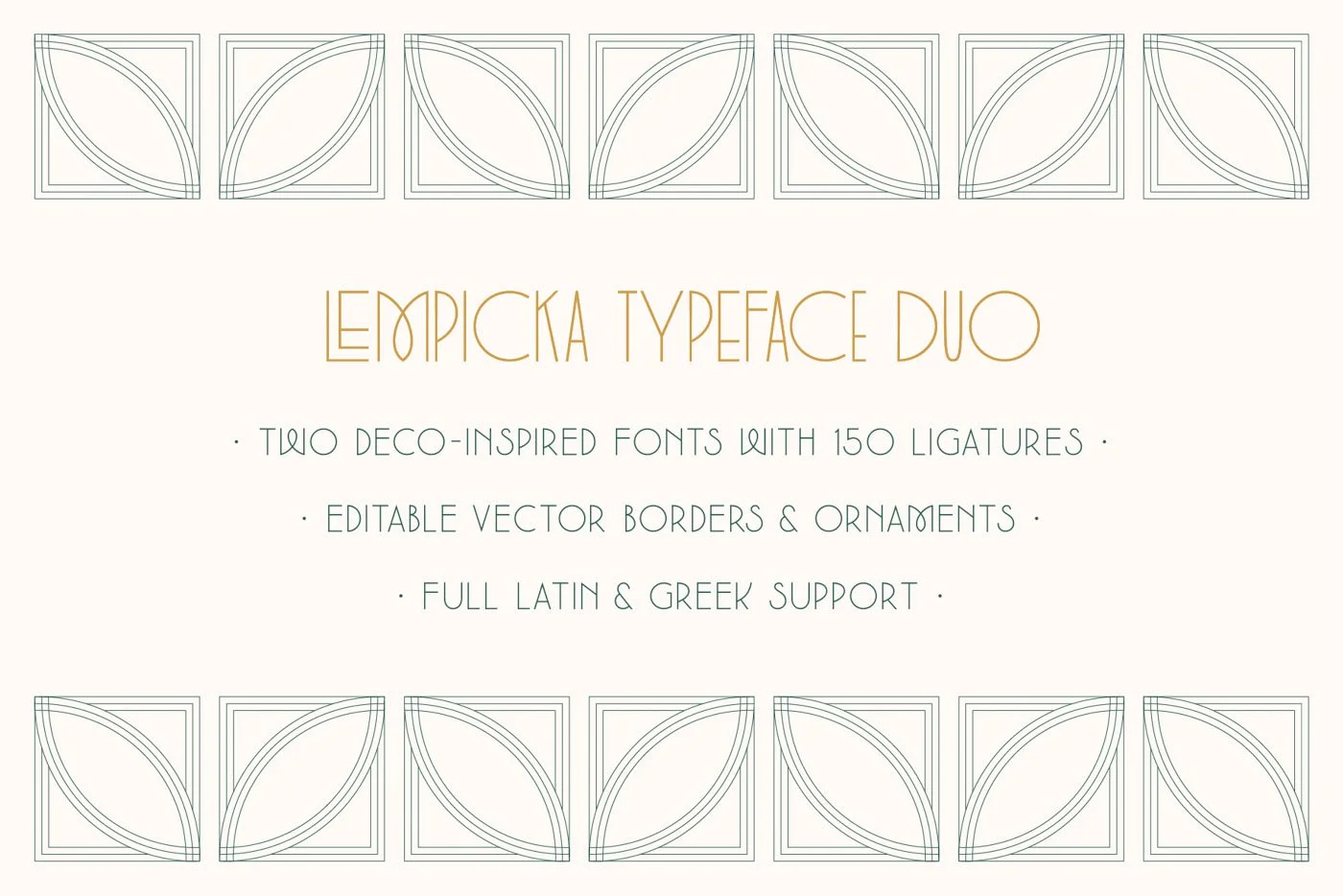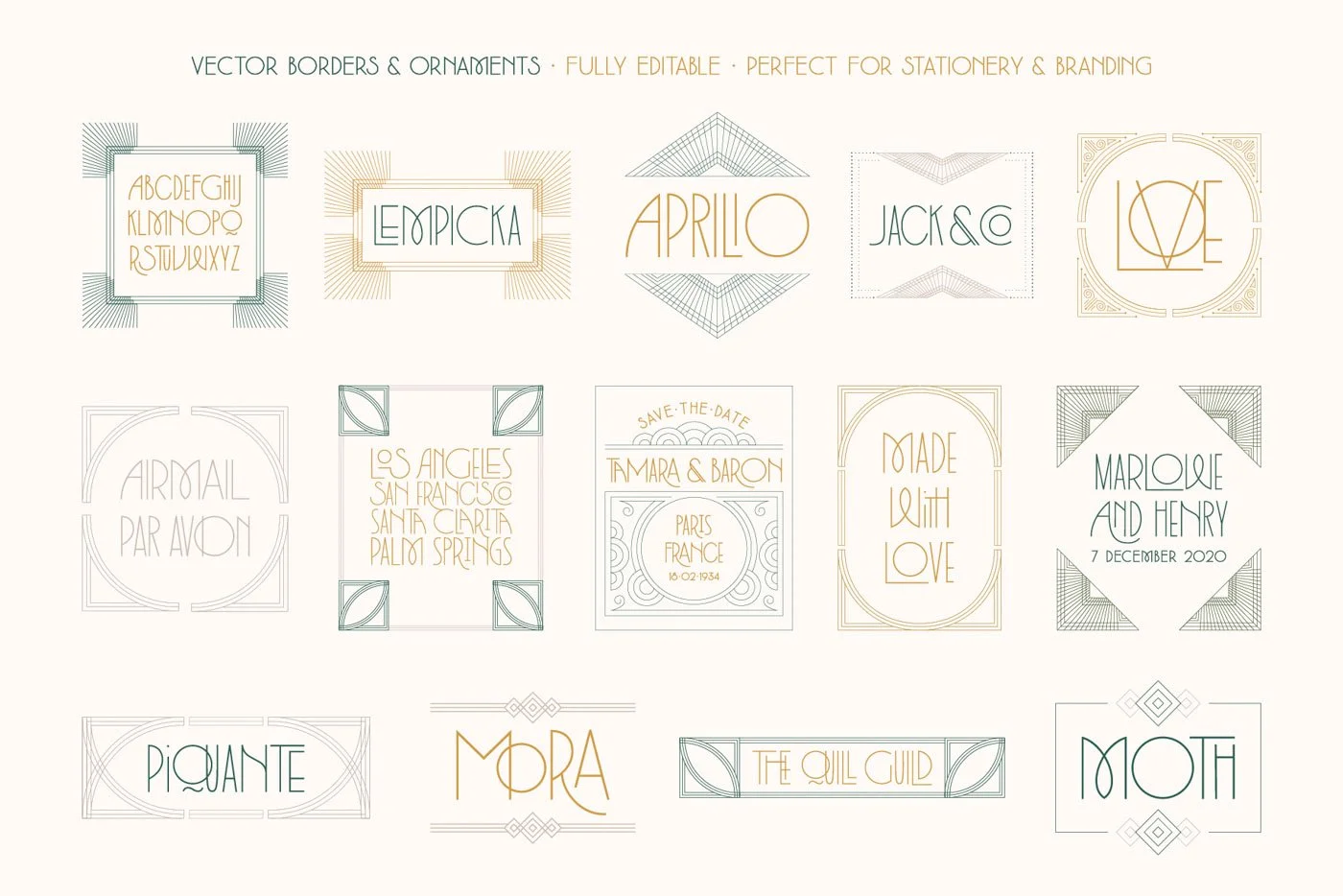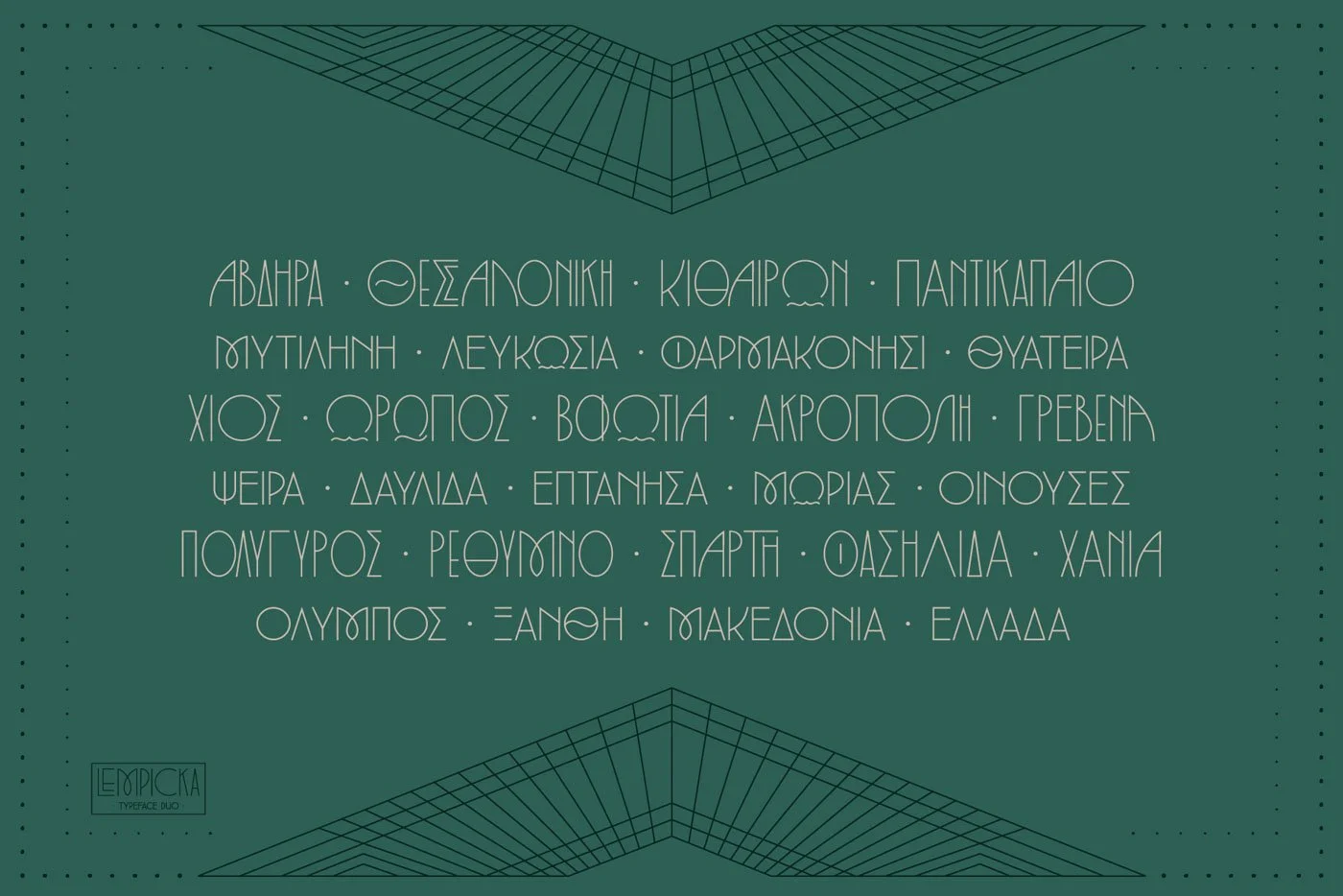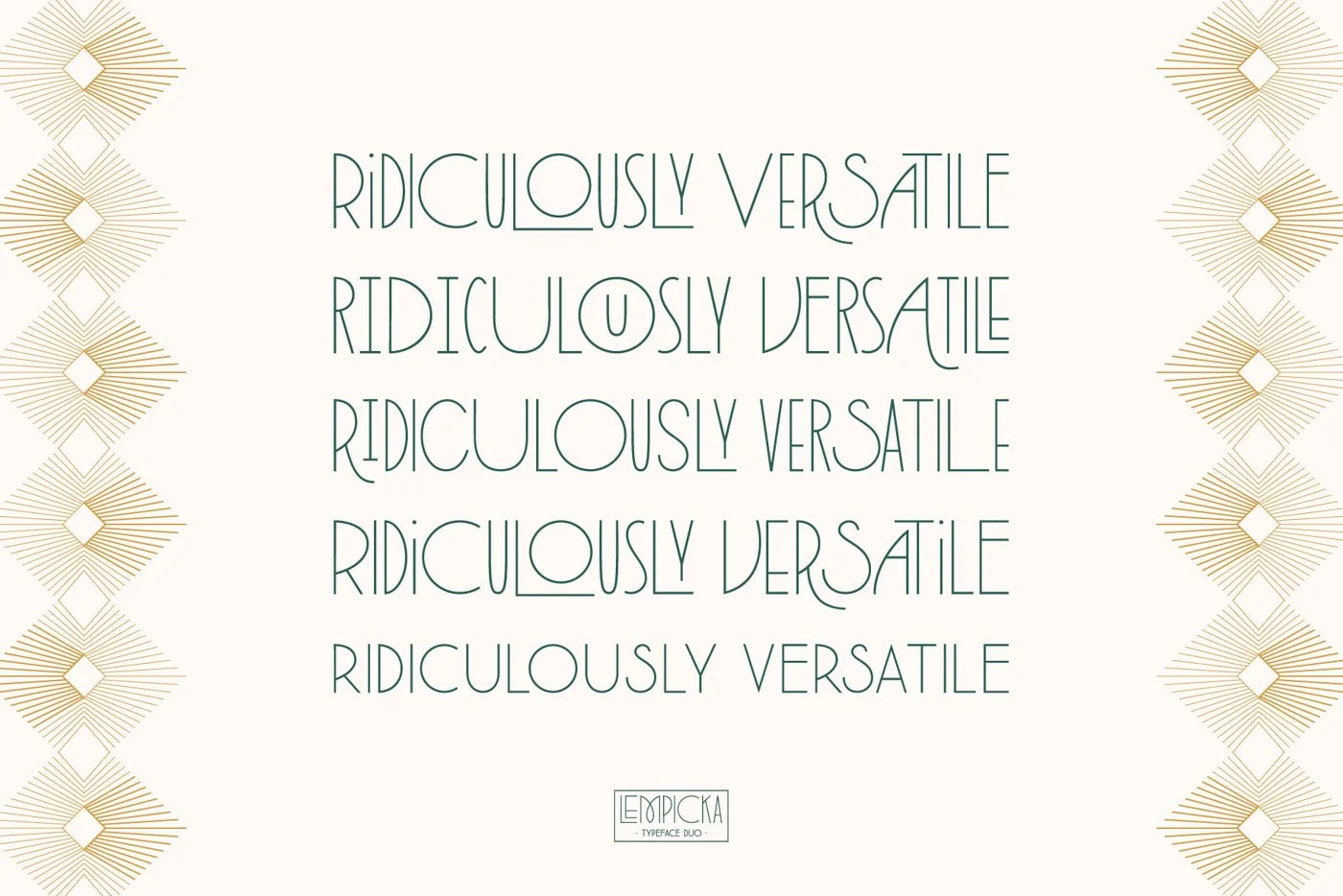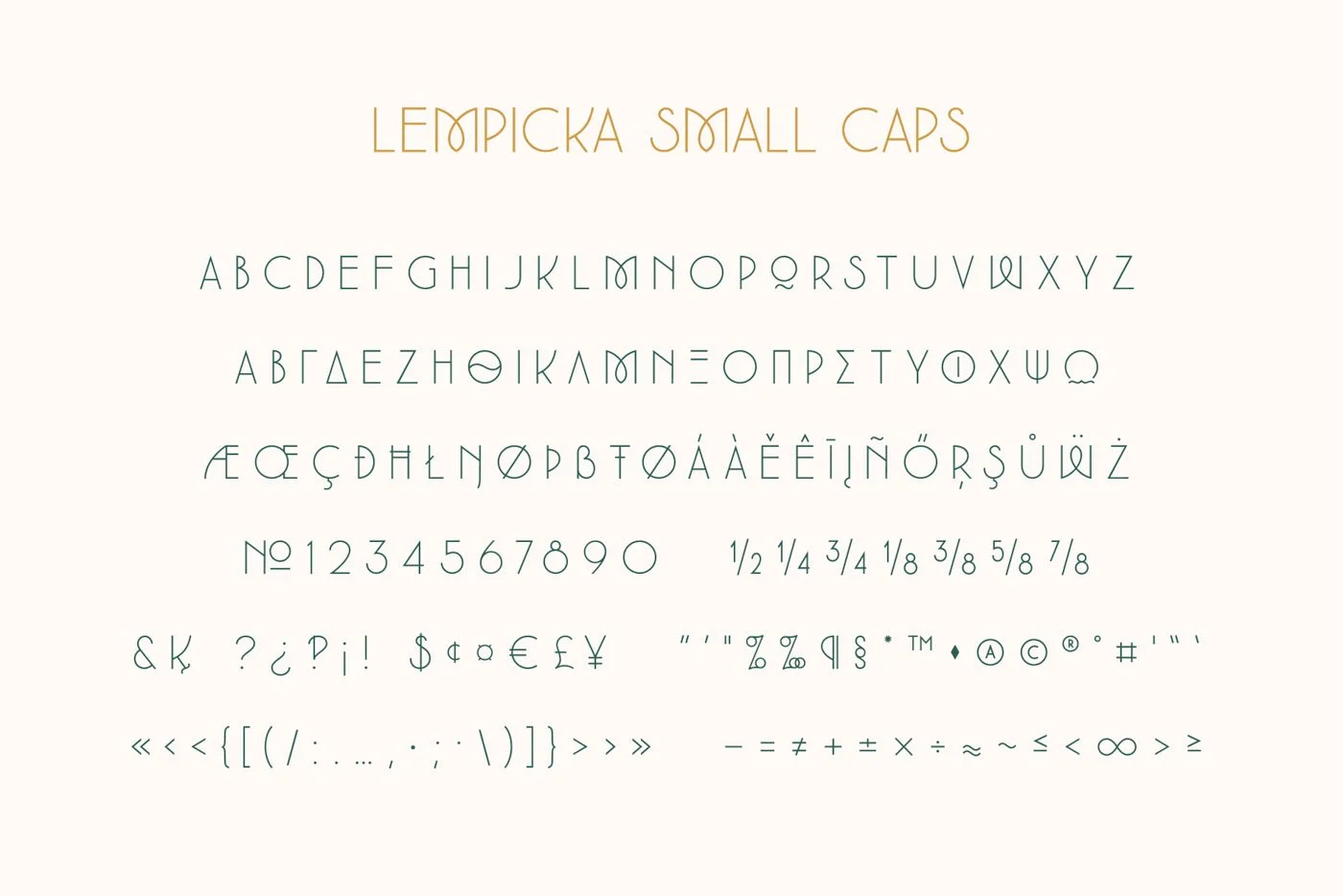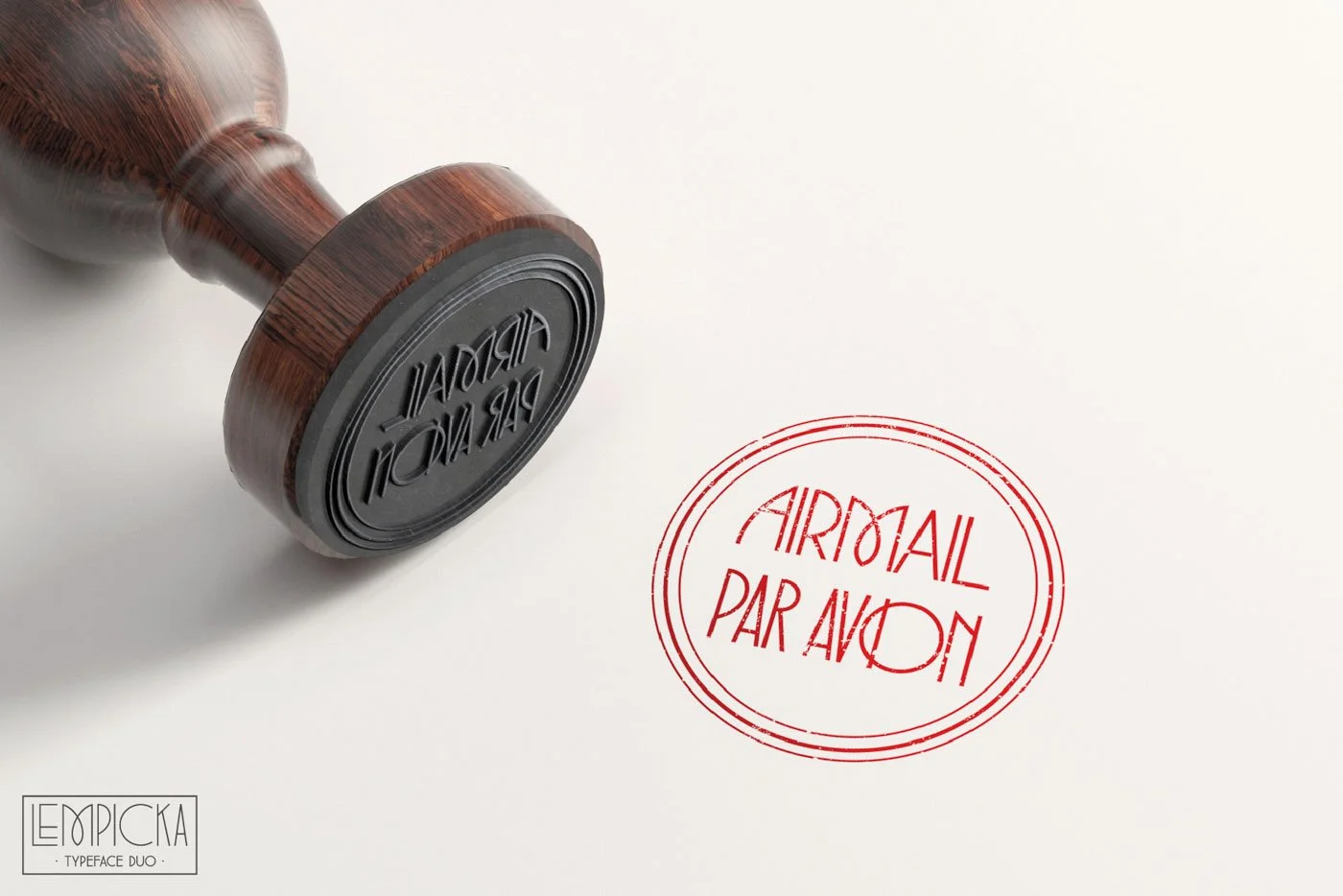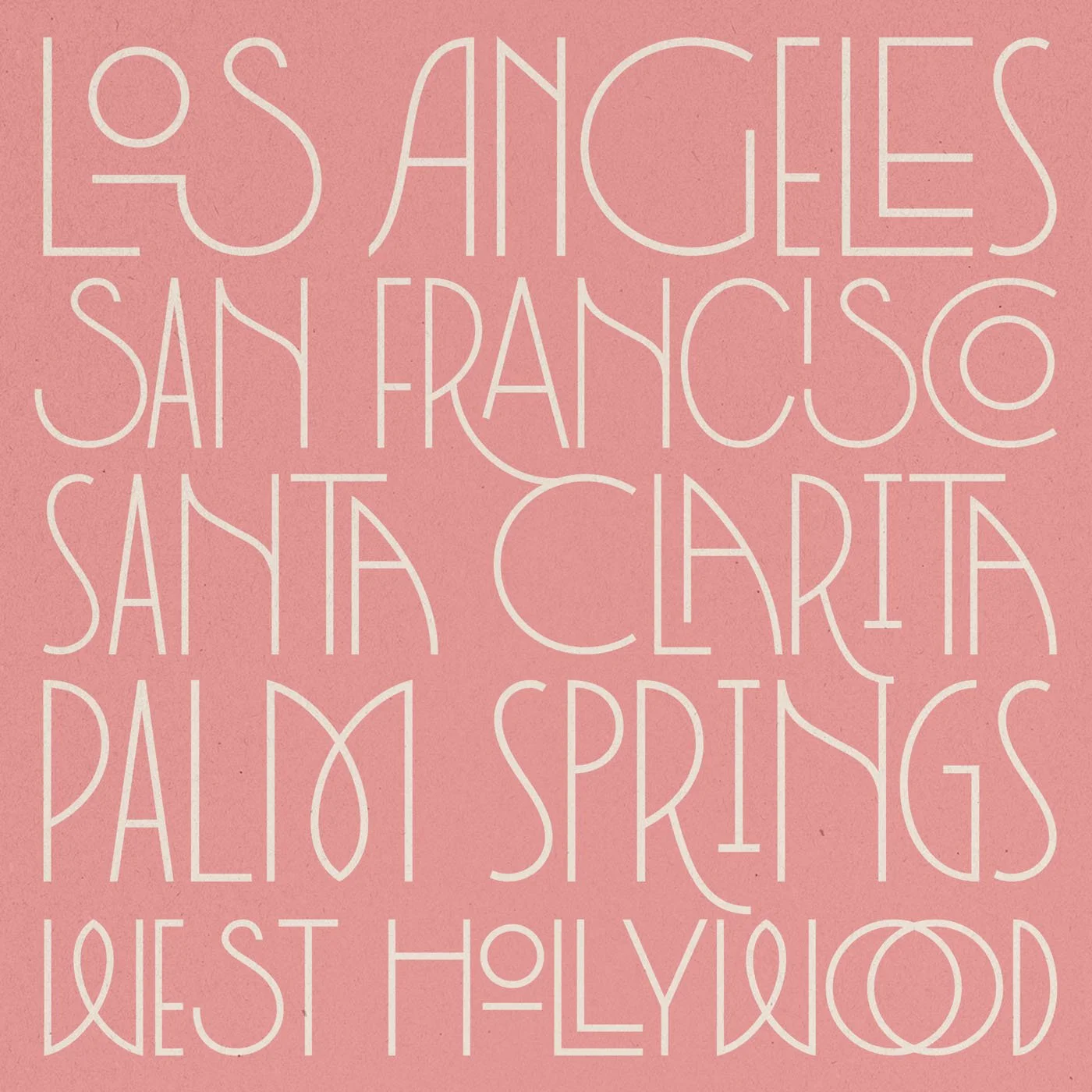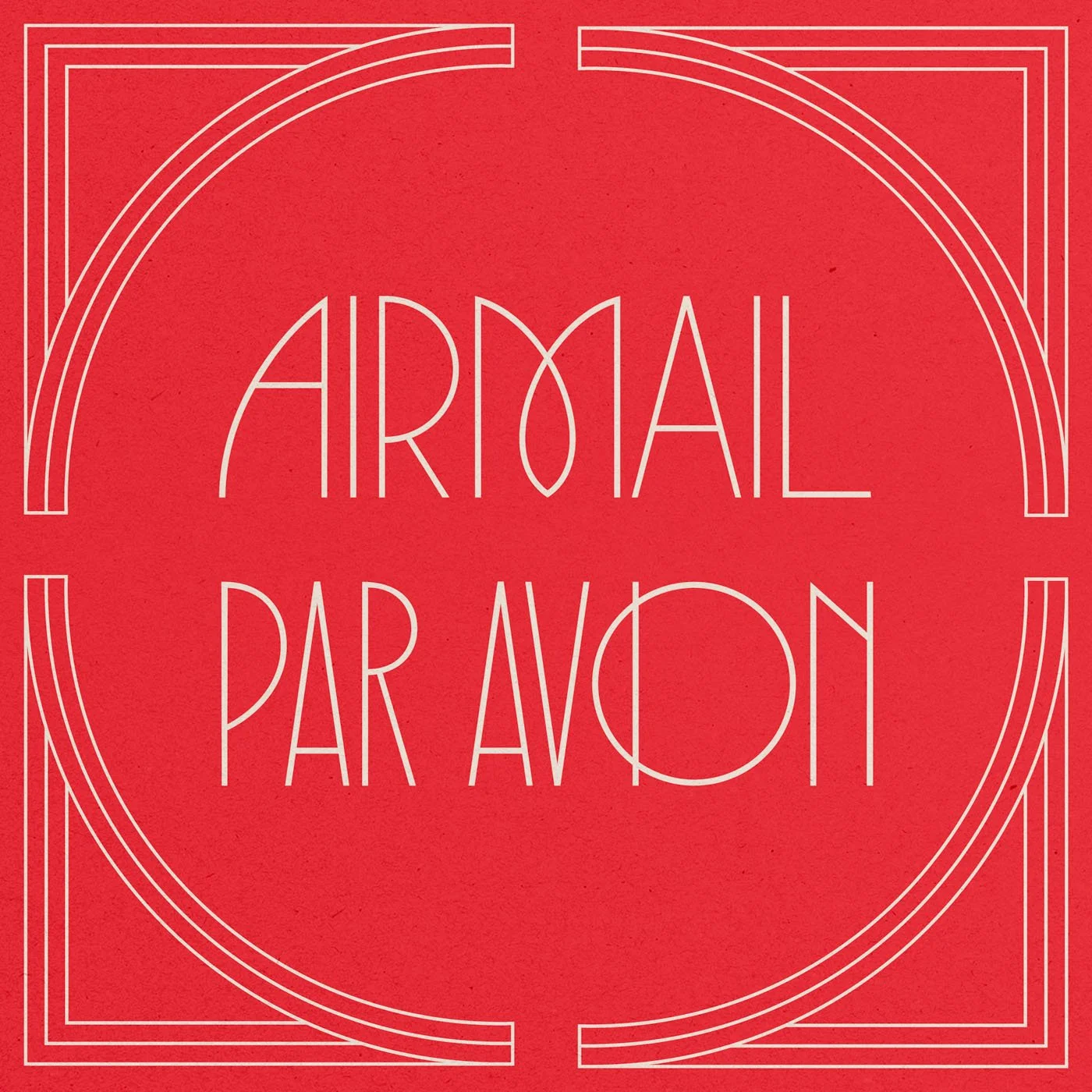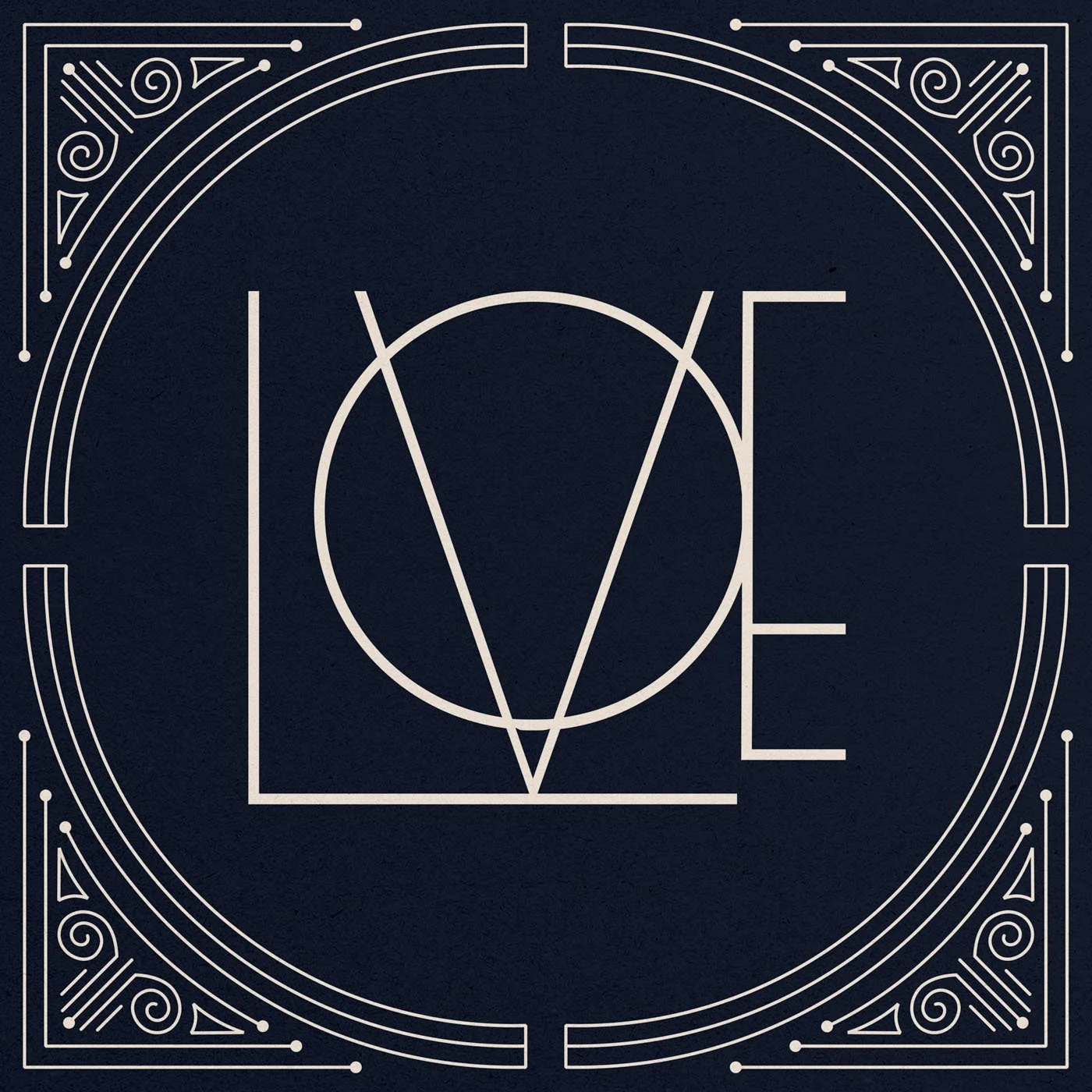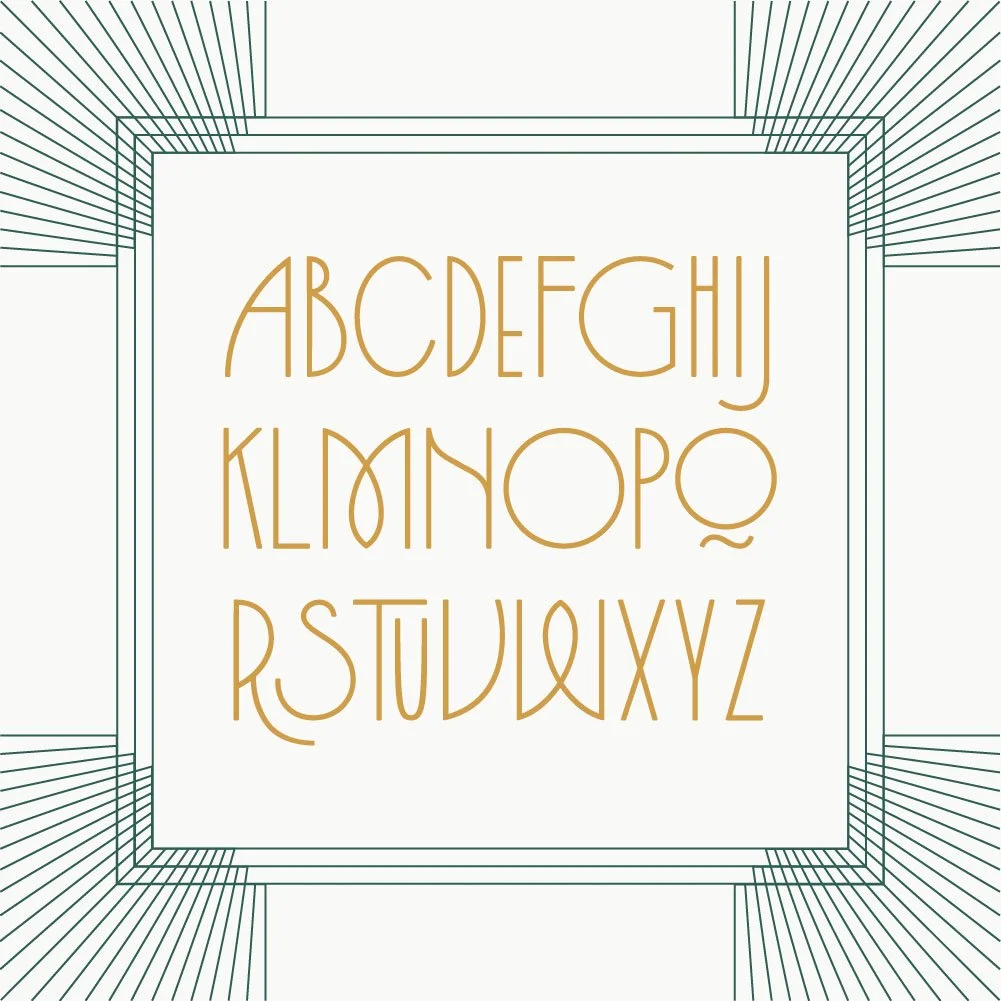
Lempicka Font Duo and Vector Pack
Lempicka is an Art Deco, ligature-rich typeface duo. The light, clean display face is packed with over 150 ligatures, paired with a versatile small caps sister font and 22 Deco-inspired vector ornaments.
Named a MyFonts.com Expert Choice, Lempicka Display and Lempicka Small Caps have strong Deco character while staying clean and readable. The display font is brimming with OpenType ligatures and stylistic alternates that make it highly customizable. The more you type, the more decorative it becomes.
The collection includes editable vector decorations with 22 Deco-inspired frames, borders, and ornaments, plus a customizable Save The Date template—all fully editable.
Lempicka Display includes:
• Complete Latin and Modern Greek alphabets
• 150+ OpenType ligatures
• Dozens of stylistic glyph alternates
• Numerals, ordinals, and fractions
• Extensive punctuation and diacritical markings
Lempicka Small Caps includes:
• Complete Latin and Modern Greek alphabets
• Numerals and fractions
• Extensive punctuation and diacritical markings
Language support: Both fonts support Latin (with accent marks for dozens of languages) and Modern Greek.